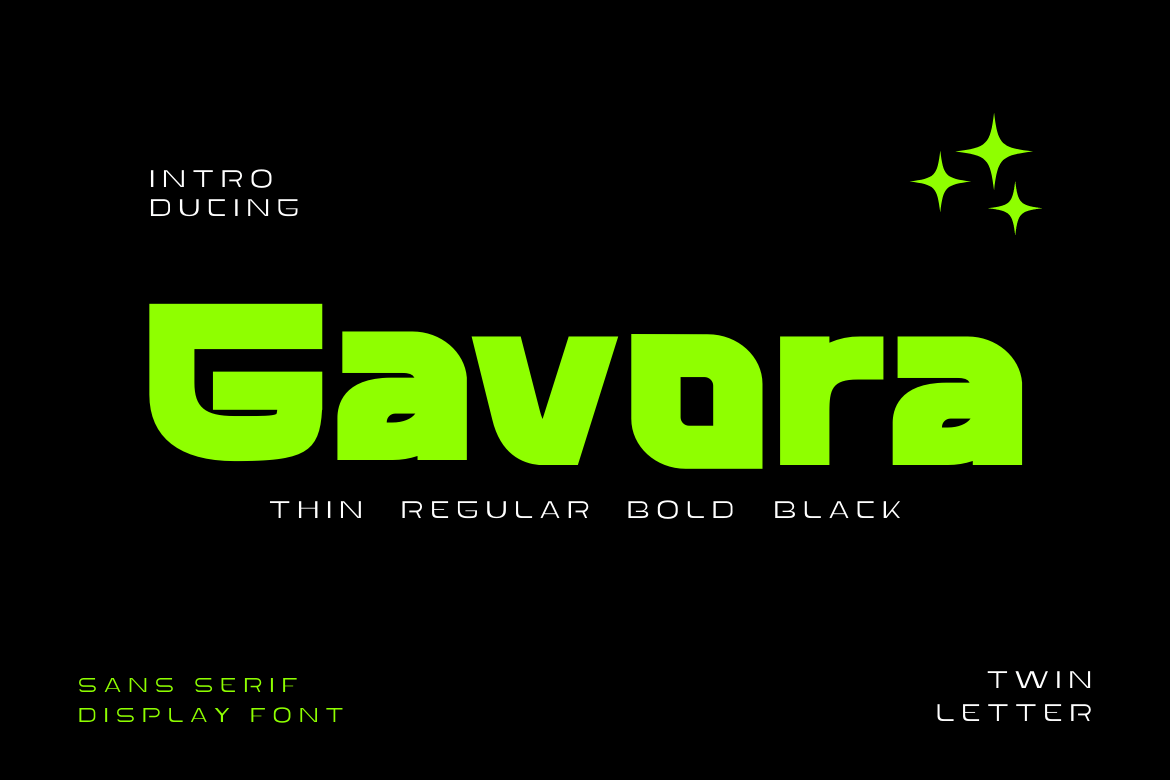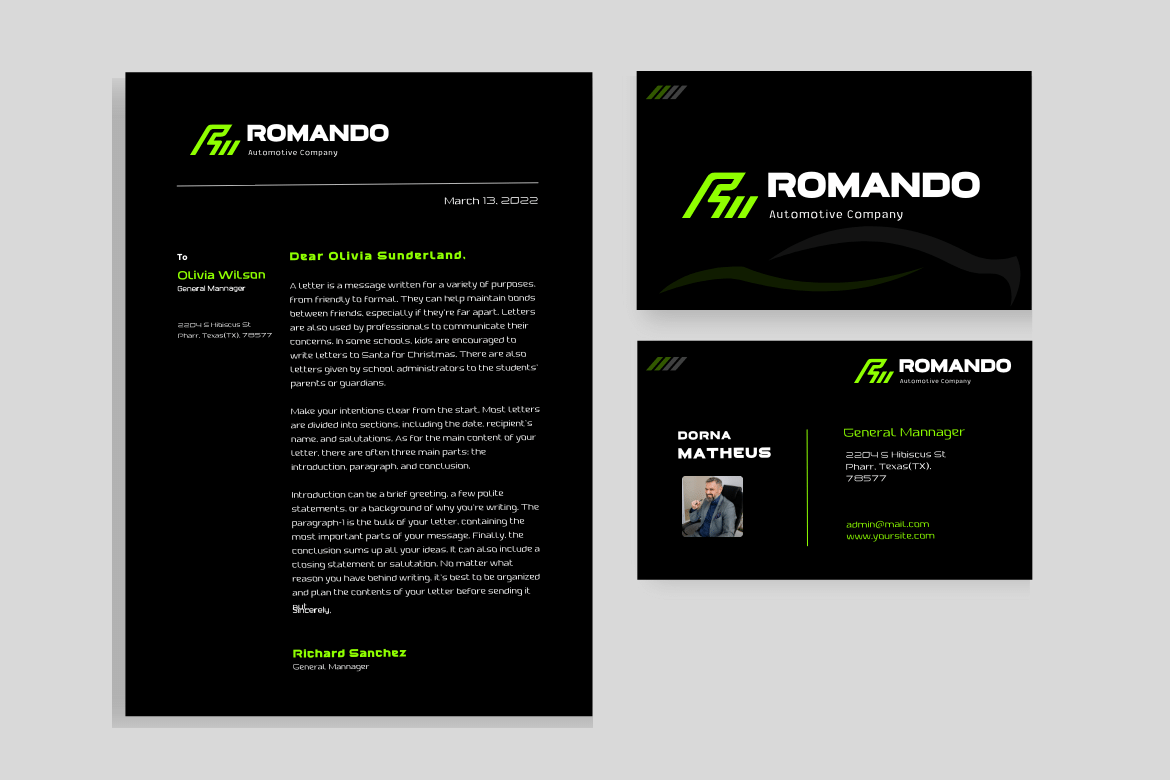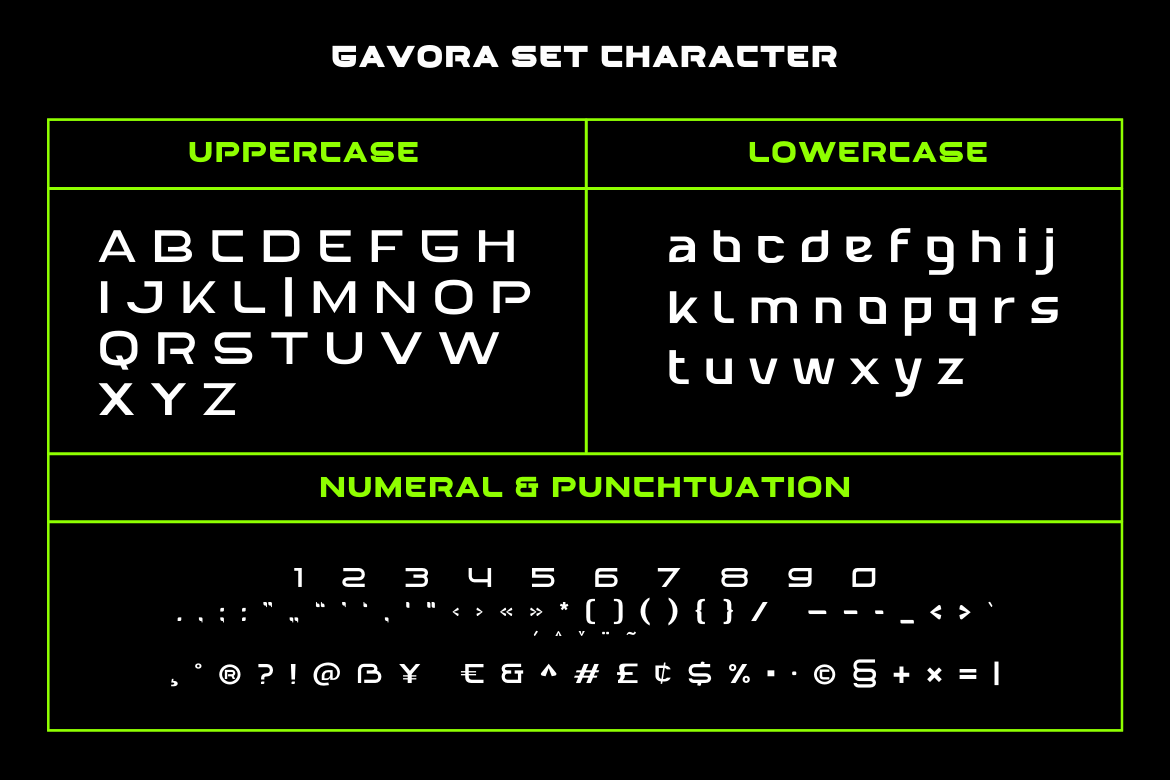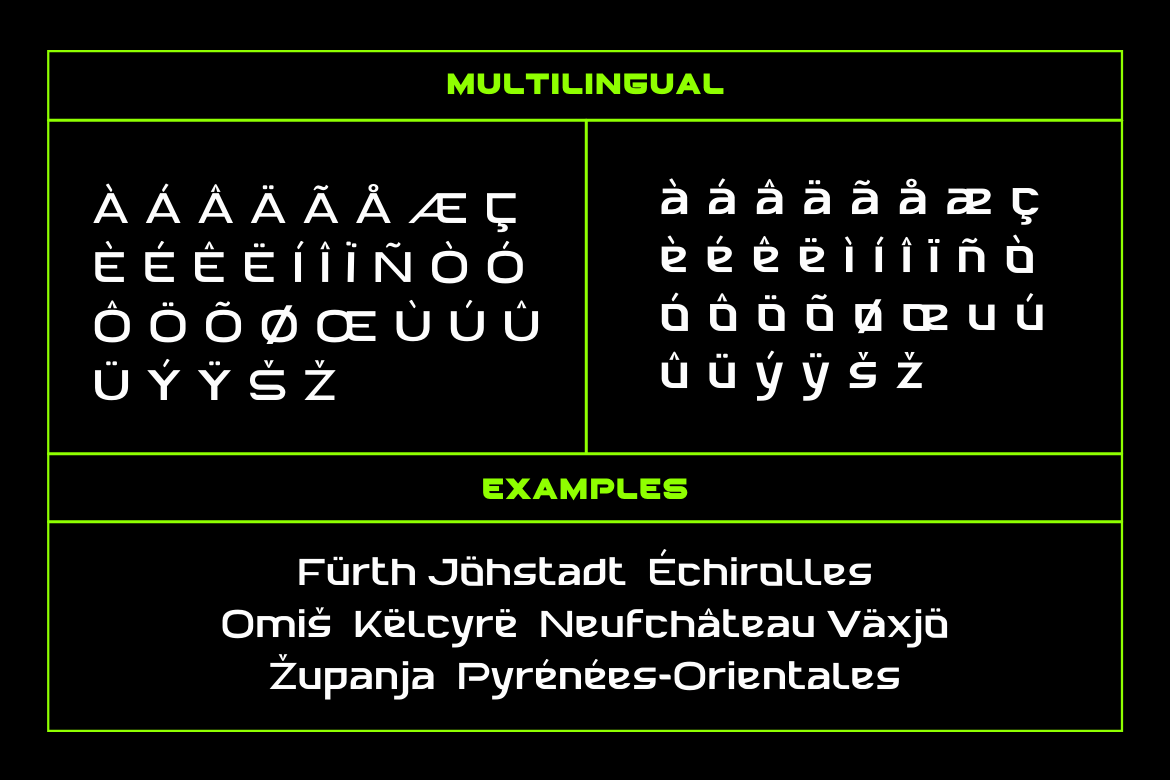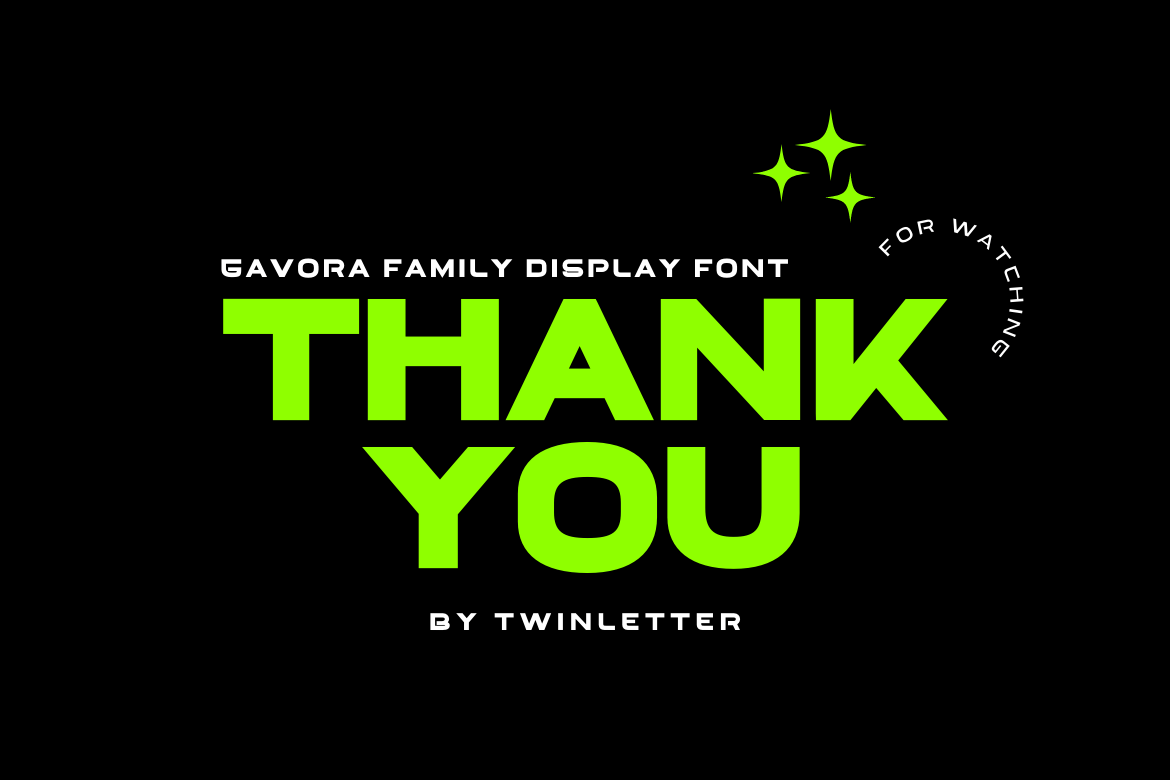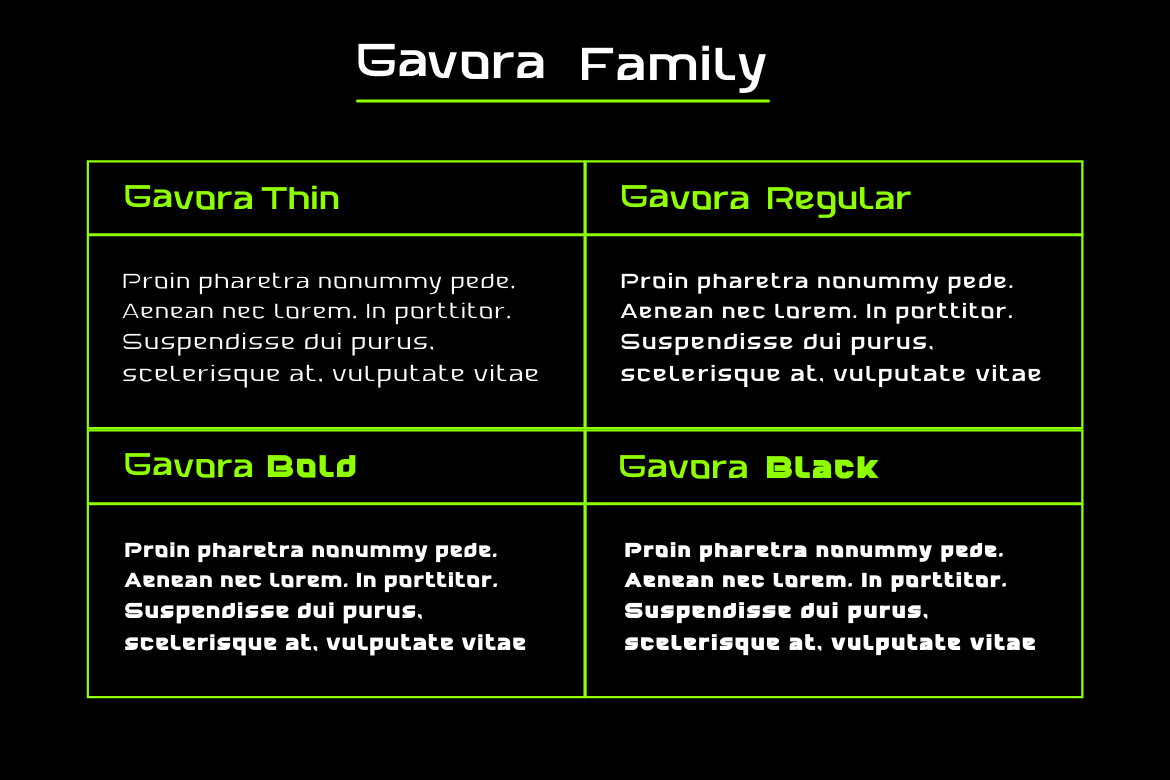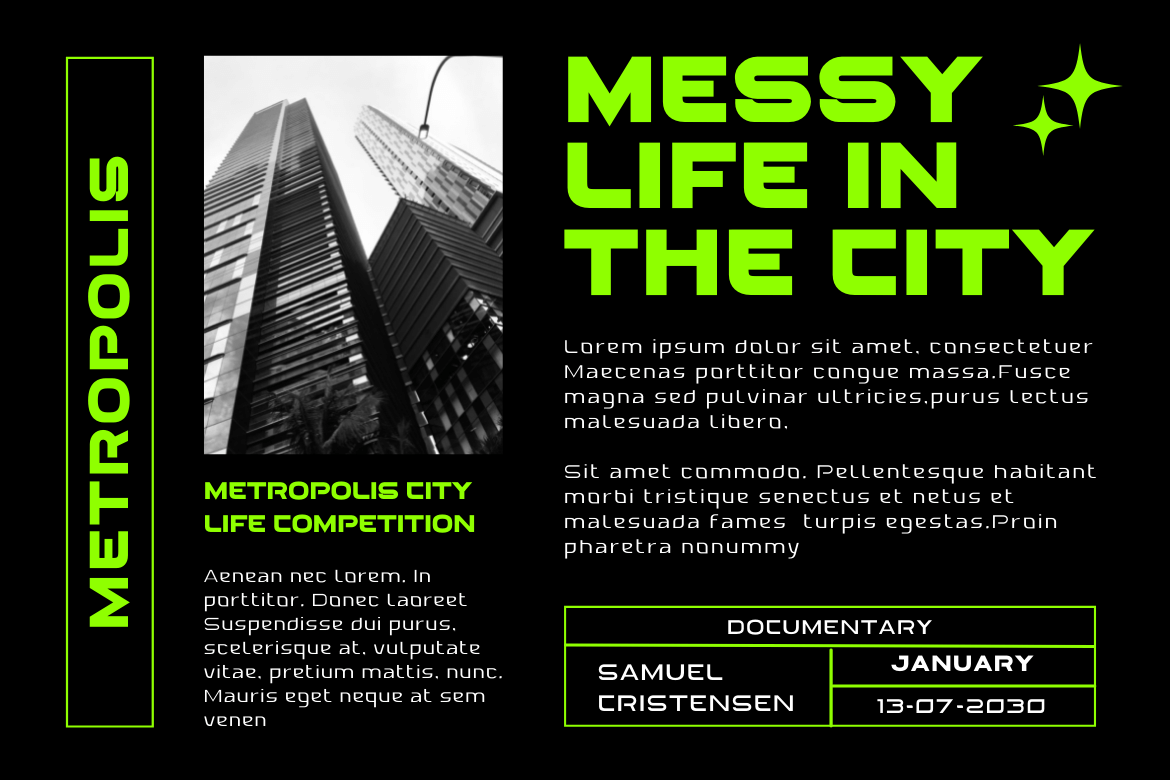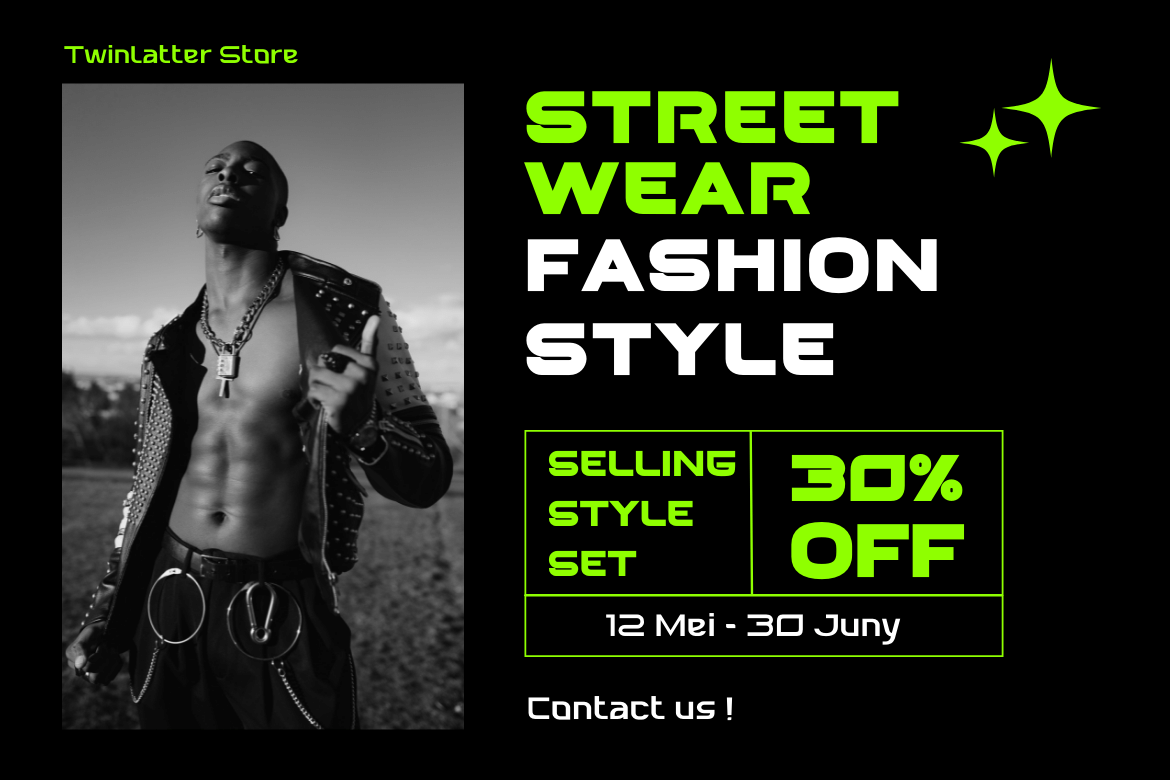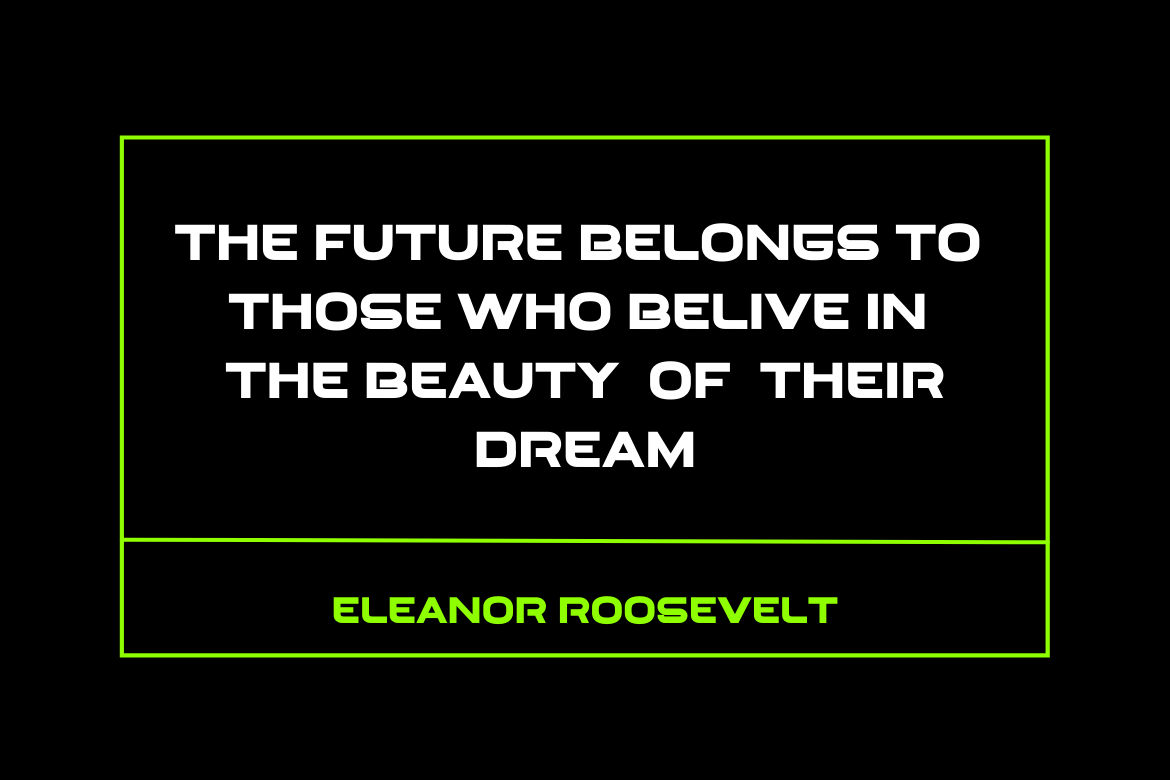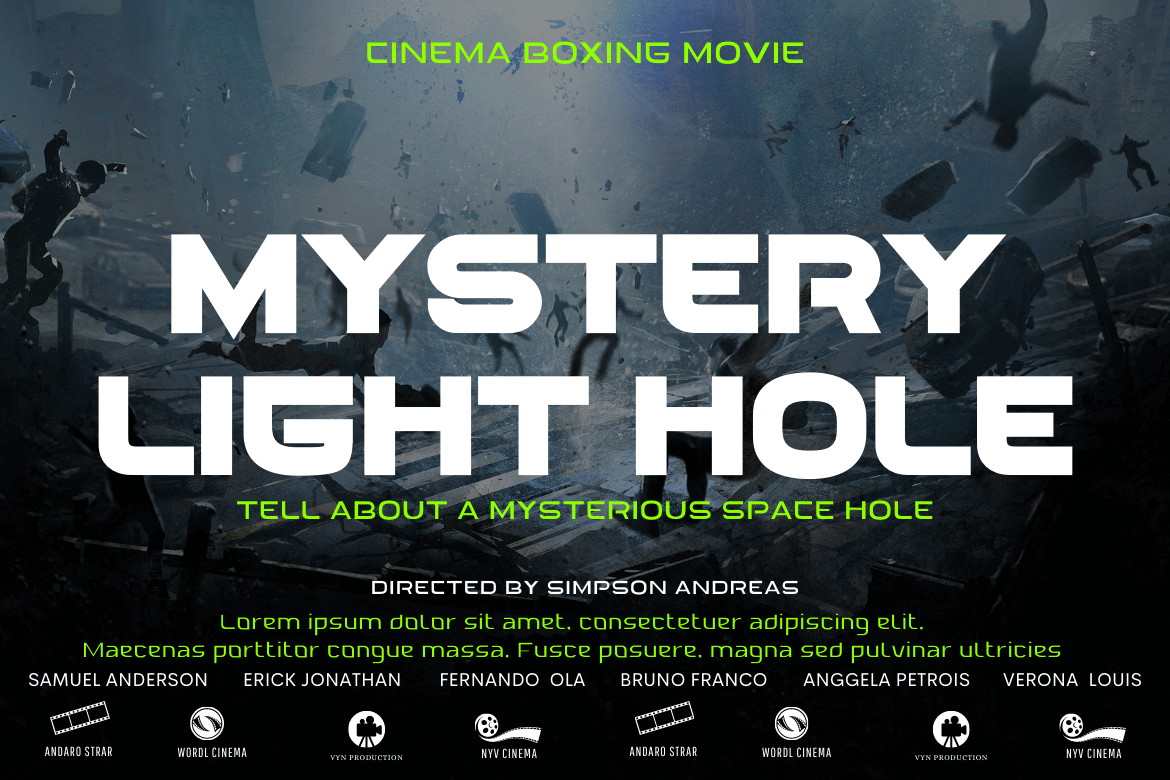
Gavora
Introducing the Gavora sans serif font.
Modern strokes are the result of the harmonization of width and height, especially in lowercase letters, to support the best possible readability. Gavora Sans’ goal is to become a universal weapon not only because it works well in headlines, sorts, and long copy, but also because of its subtle neutrality. So that it creates a proportional text.
• Fonts include multilingual support for; Afrikaans, Albanian, Croatian, Czech, Danish, Dutch, English, Estonian, Finnish, French, German, Hungarian, Italian, Norwegian, Polish, Portuguese, Slovak, Slovenian, Spanish, Swedish